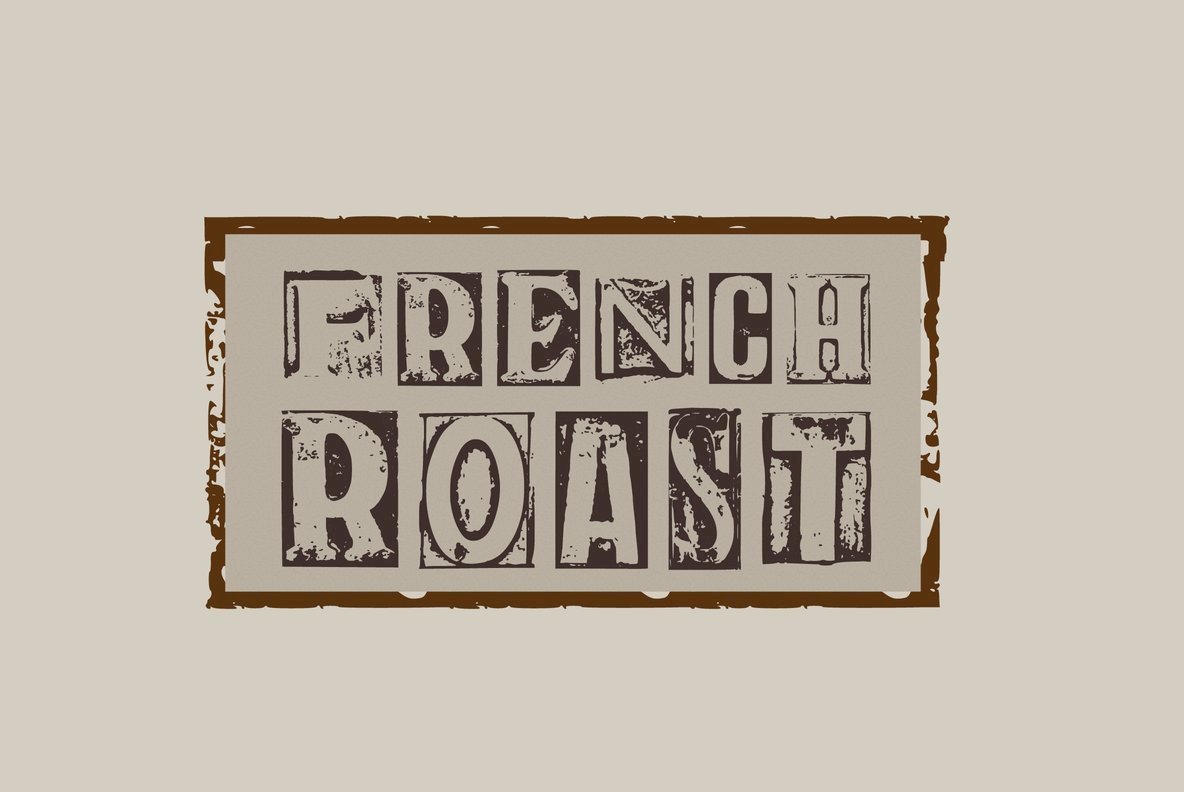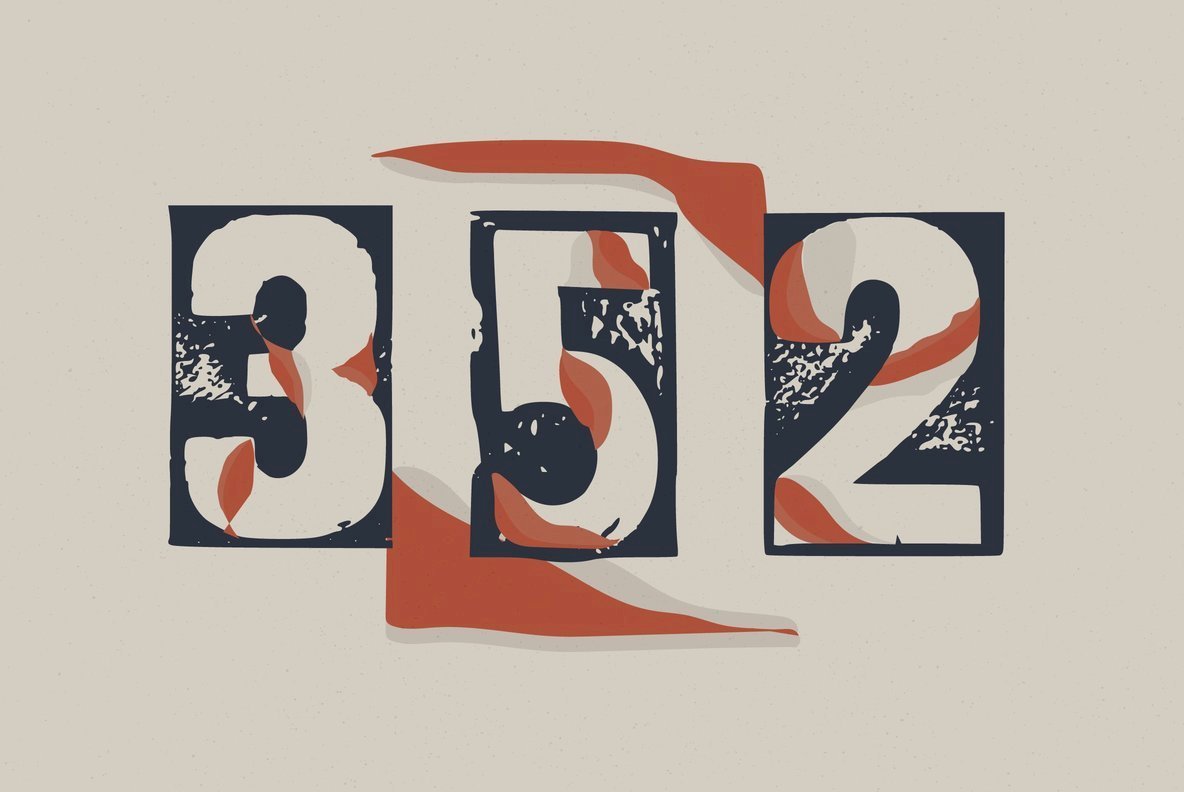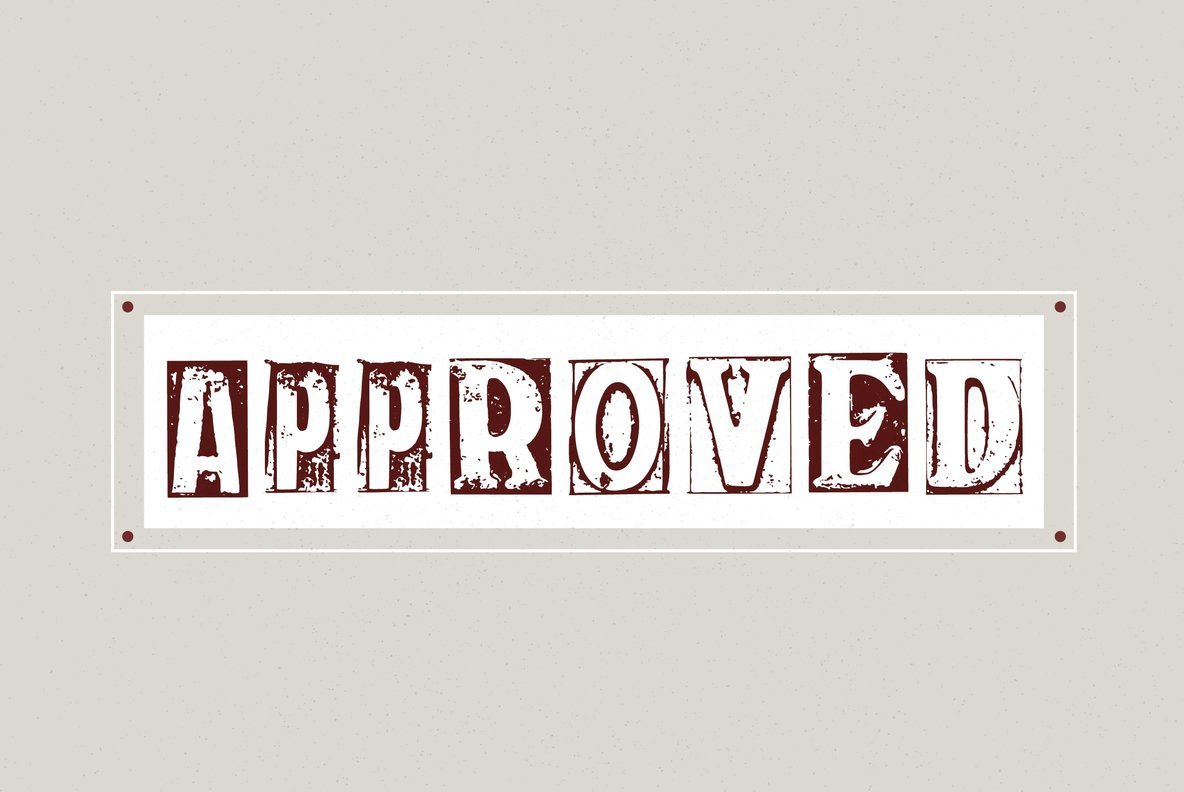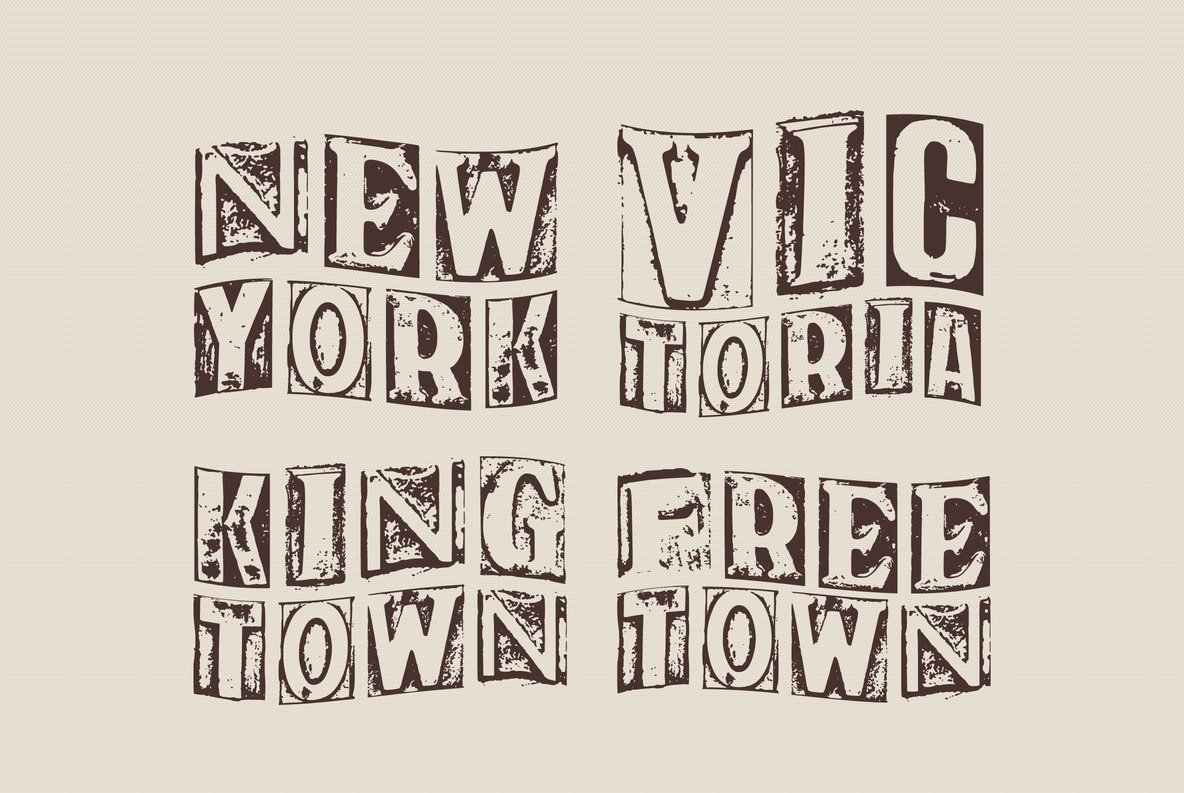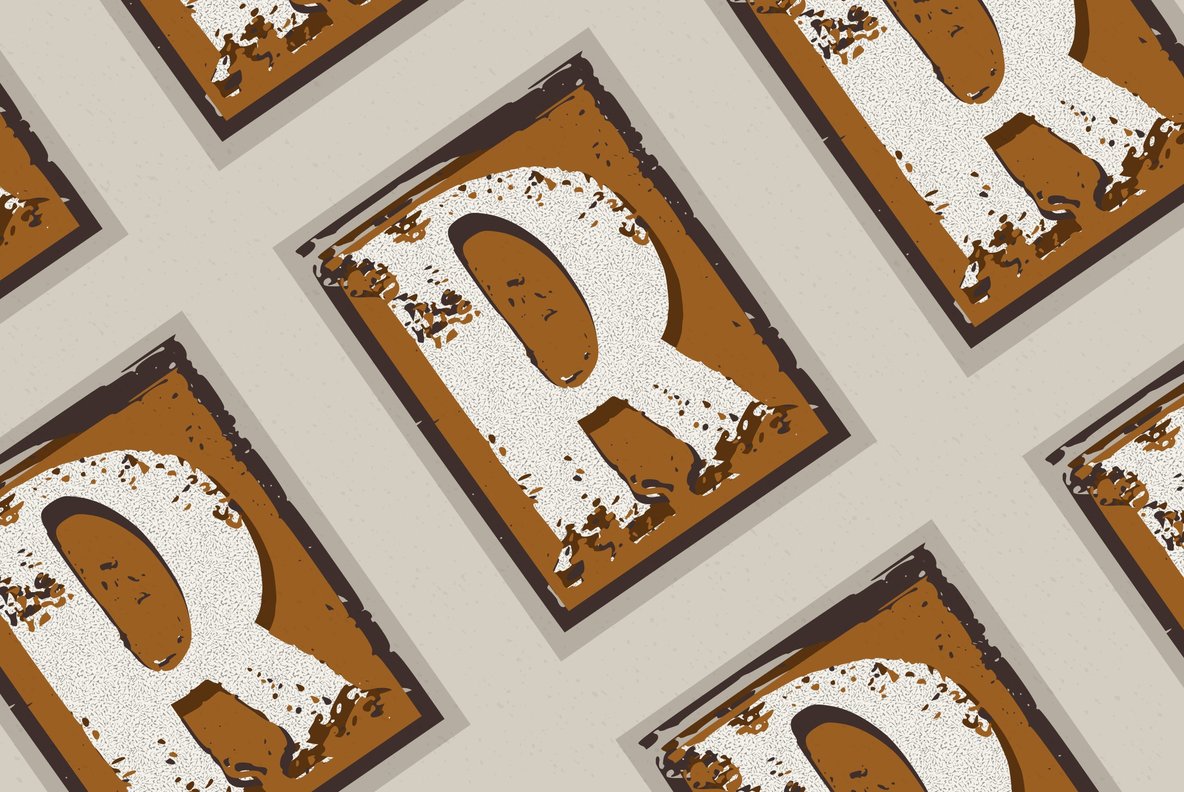
Print Room Font
Print Room Regular
Looking for a vintage, turn of the century font with bags of character. Print Room 1 & 2 is a collection of wood and metal fonts usual found and used in a printing room. Large wooden block type is very fashionable to have around the home but can be expensive (the originals even more so!) so these sets will let you create your own messages and designs. Numbers, upper case A-Z with some symbols will give you the chance to bring to life t-shirts, mugs, posters and prints. No need to find lots of different styles of fonts or arrange them as the font is set to go, combine it with Print Room 2 to mix it up even further. Find a printer and a nice frame and you have a unique print for all for yourself. This font was created by Benjamin A Melville and features a full upper and lower case alphabet including 0-9 and some punctuation, please see glyphs list for all characters you will be able to work with.